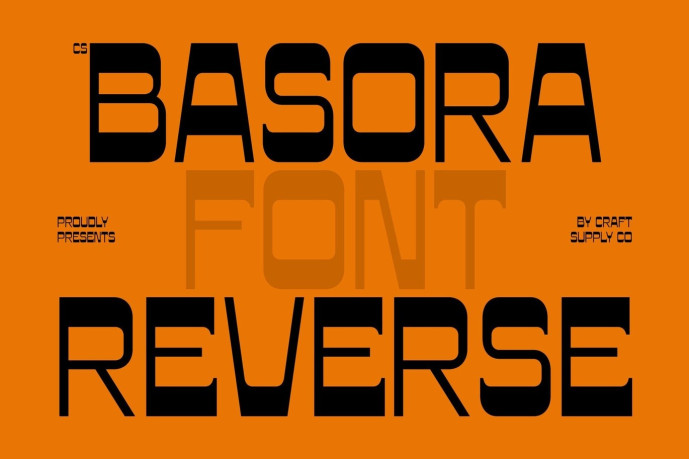
Basora – Reverse Contrast Font
Designer: Craft Supply Co.
CS Basora – Reverse Contrast Display Sans: Where Retro Energy Meets Modern Boldness 1980s-Inspired Character with Contemporary Clarity This is a bold display sans featuring striking reverse contrast that captures the spirited energy of 1980s graphic design while maintaining a clean, modern edge. With thicker horizontal strokes and slimmer verticals, its unconventional construction creates a distinctive visual rhythm that feels nostalgic yet refreshingly contemporary.
Bold Structure with Dynamic Personality This font delivers exceptional visual impact without compromising clarity. Its reverse contrast styling introduces a lively retro character, while its clean sans serif foundation keeps the overall appearance polished and versatile. This combination makes the font expressive enough for creative projects while remaining highly legible and effective.
Retro Charm with Modern Versatility This font blends vintage inspiration with contemporary functionality, making it suitable for a wide variety of bold display applications. Its energetic personality adds warmth and individuality to designs, while its structured forms ensure headlines and logos remain crisp, memorable, and visually commanding.
Perfect for Posters, Packaging, and Logo Design Perfect for posters, packaging, logo design, branding, advertising campaigns, editorial headlines, merchandise, event graphics, product labels, and other creative projects that demand bold personality and retro-inspired appeal. Its reverse contrast forms make it ideal for typography that seeks to communicate confidence, creativity, and timeless visual impact.
Uppercase and lowercase characters